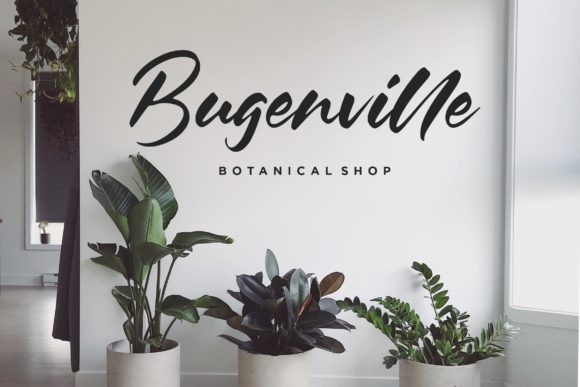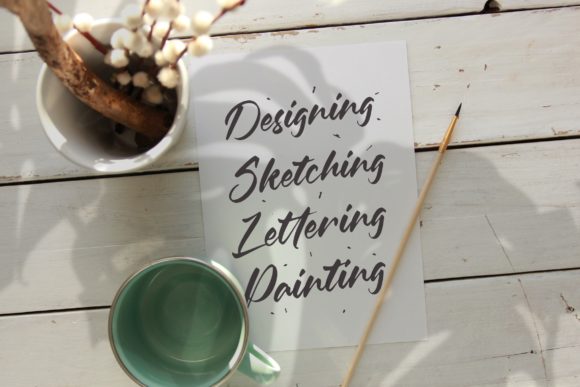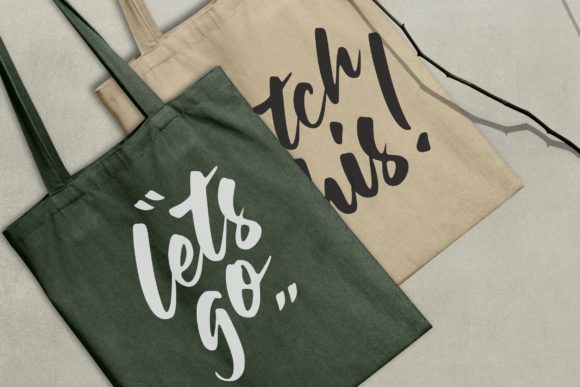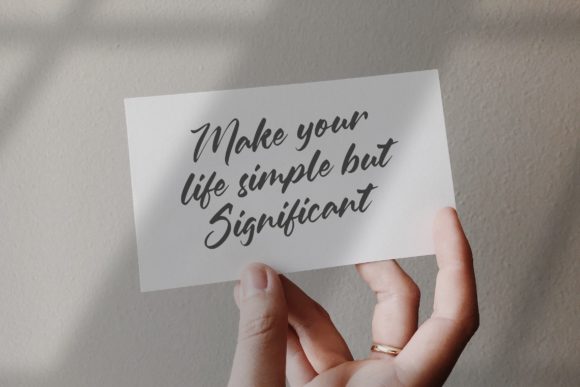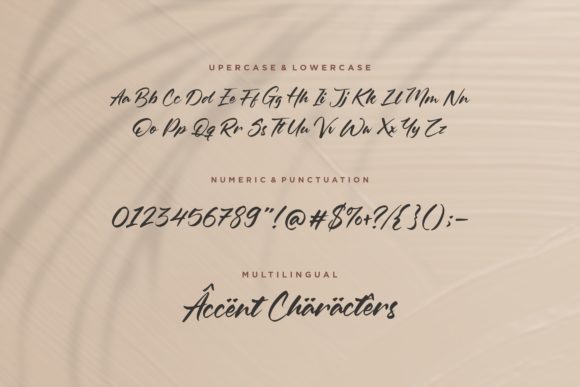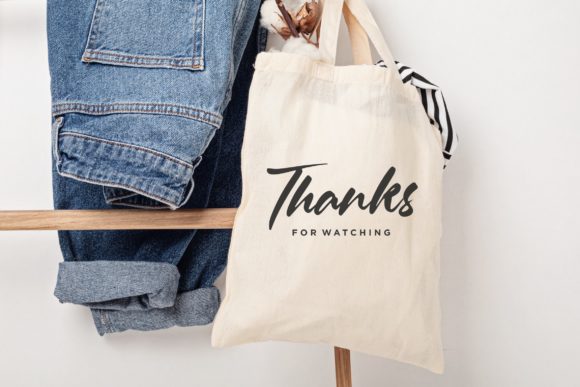
Oleandro Font
About Oleandro Font
Oleandro is a unique and elegant handwritten font. It looks beautiful on a variety of designs requiring a personalized style, such as wedding invitations, thank you cards, weddings, greeting cards, logos and so on.